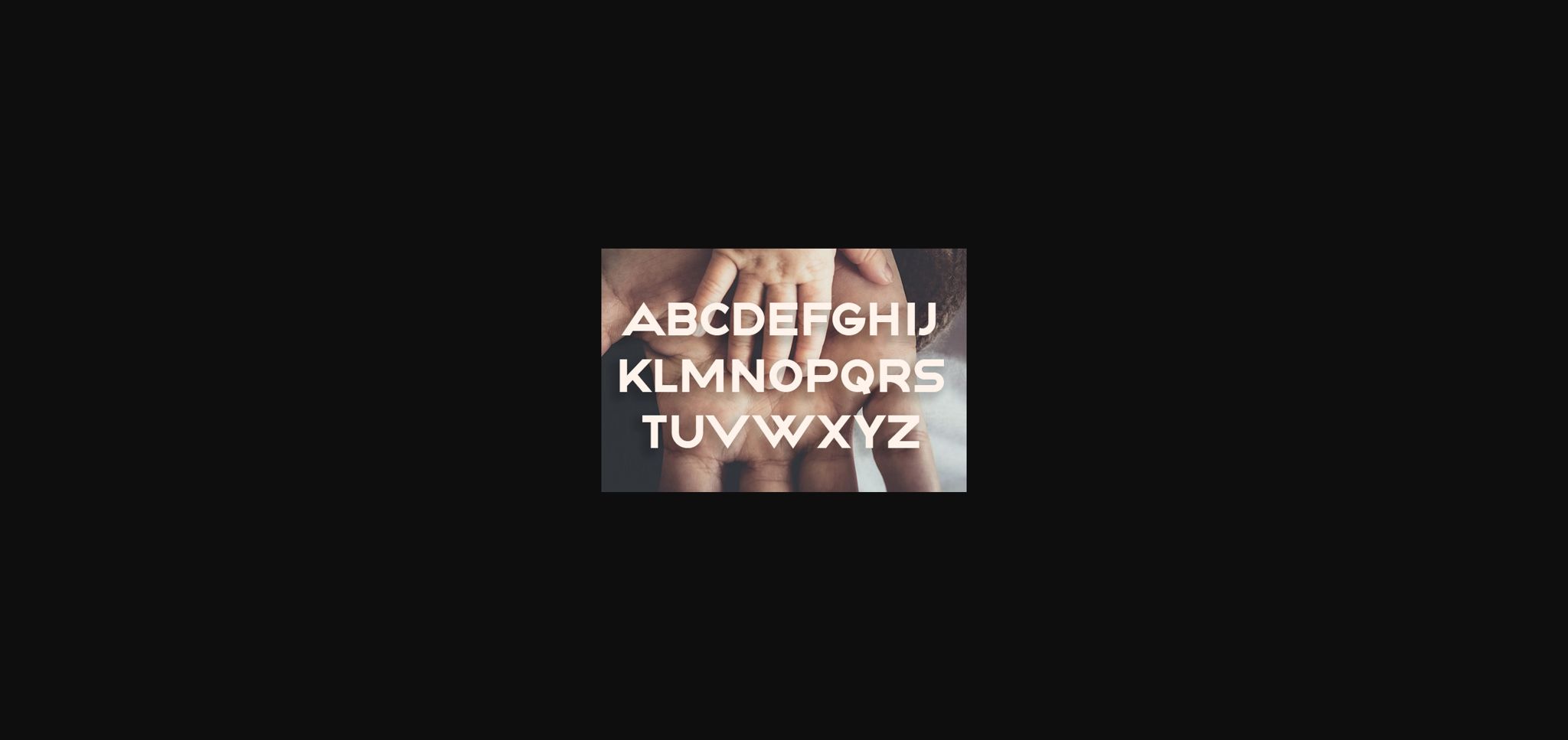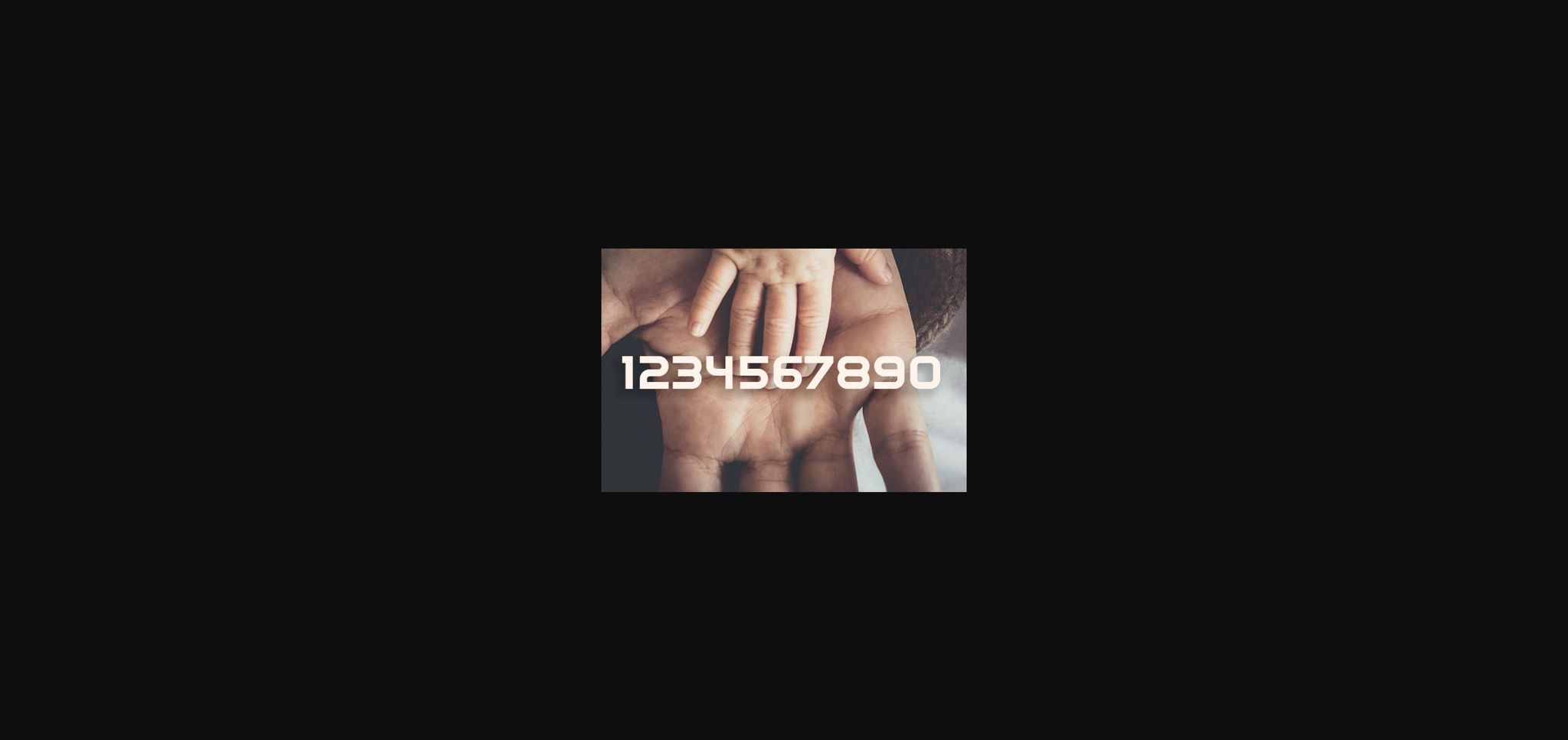
HomeSans Serif FontsHappiness Font Sans Serif Fonts Happiness Font FacebookXPinterestWhatsApp 1 of 5 ... Happiness Font Poster 2... Happiness Font Poster 3... Happiness Font Poster 4... Happiness Font Poster 5... About Happiness Font Happiness is an extravagant Sans Serif font with great visibility. Use this font on banners, shirts, and much more. DOWNLOAD NOW People also explored Arthas Font Sunstrike Font Adeen Font Overfly Font Retro Mood Font Juneteenth Font Tiara Font Snowhite Font Designer Font 411 0 TagsHappiness Font Previous articleVelko FontNext articleSorvette Font LEAVE A REPLY Cancel reply Comment: Please enter your comment! Name:* Please enter your name here Email:* You have entered an incorrect email address! Please enter your email address here Website: Save my name, email, and website in this browser for the next time I comment. Personal Use Free Hagia Signal Personal Use Free Read more about this font Bally Girl Personal Use Free Read more about this font Heartburn Personal Use Free Read more about this font Strasua Personal Use Free Read more about this font BLOG Transform Your Website: Elevate Your Typography with 7 Best Web Font Generators Are you ready to transform your website's typography from ordinary to extraordinary? Great! Today, we're diving into the world of web font generators, which... Elegant Wedding Invitation Fonts – Handwritten & Script Fonts Free vs Paid Fonts: Why Investing in Premium Fonts Is Worth It 5 Fonts That Will Dominate Design Trends in 2026